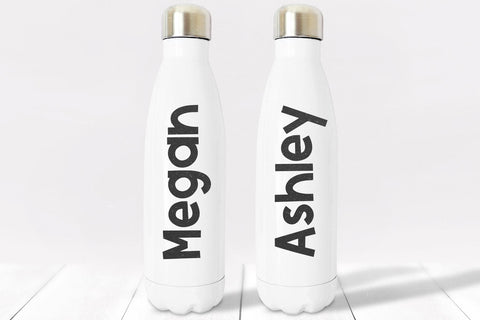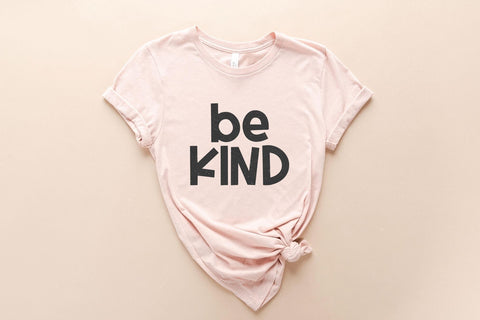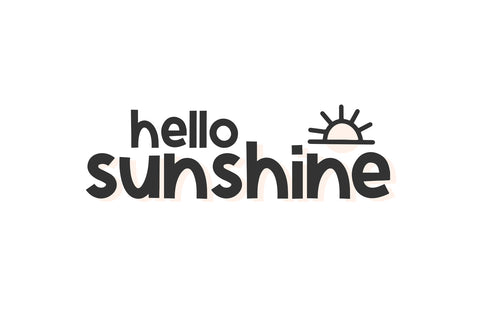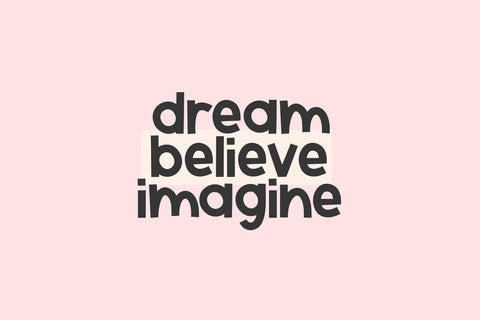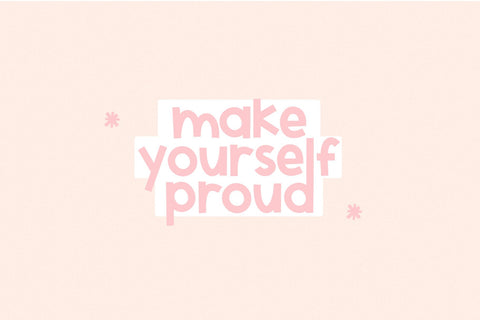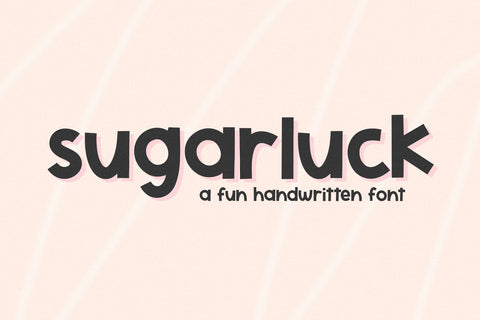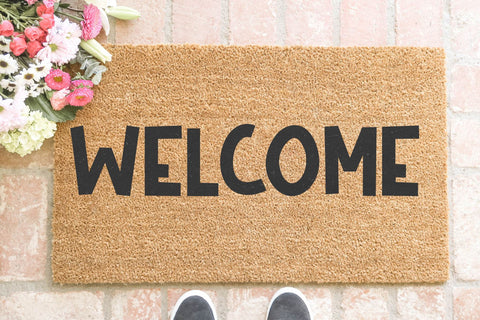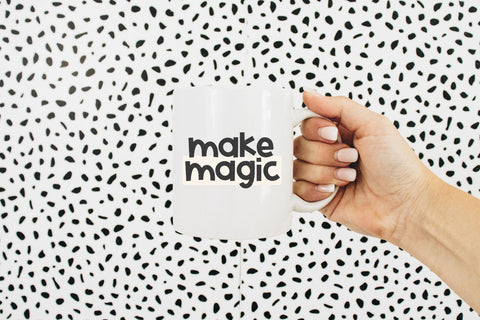
Sugarluck - Fun Handwritten Font
Sugarluck is a fun handwritten font.
This font is perfect for all of your cricut projects, SVG designs, stickers, logos, shirts, procreate and more!